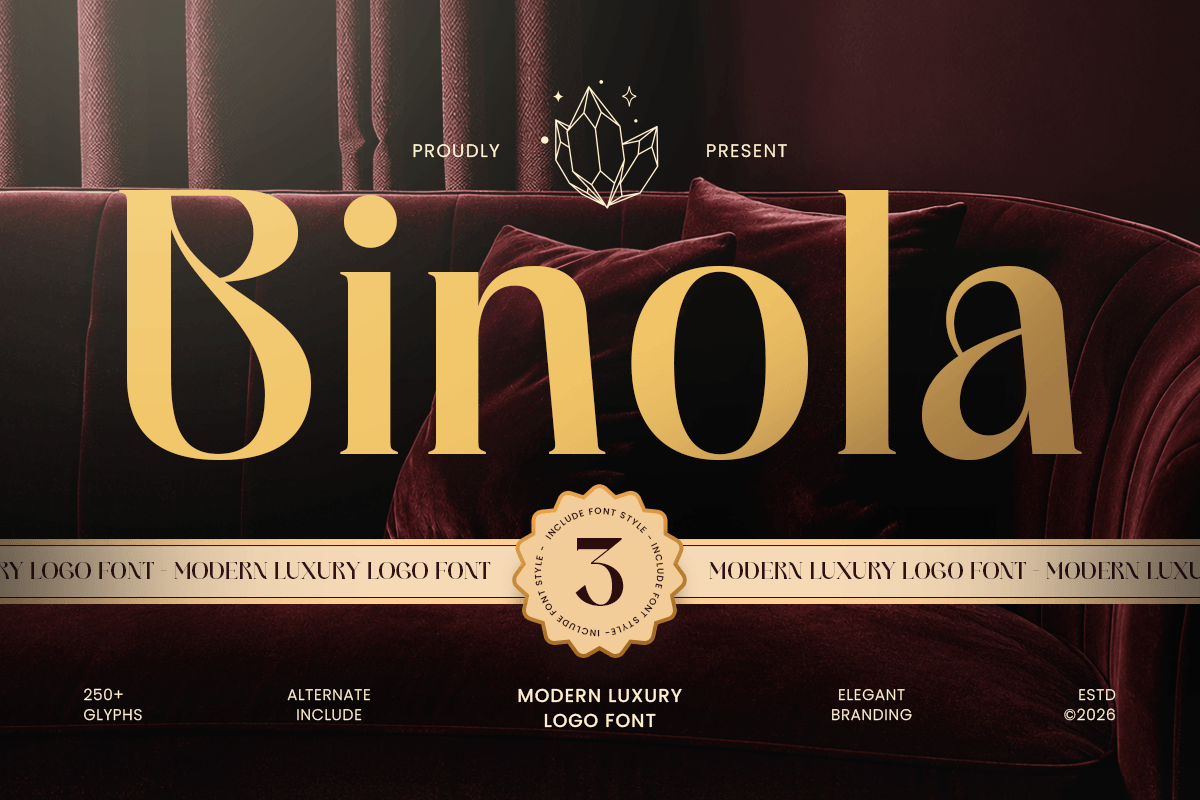
Binola
-Modern Luxury Logo Serif Font
Binola - Modern Luxury Logo Serif Font
Binola is a modern luxury logo serif font designed to bring elegance, refinement, and premium character to your creative projects. With graceful serif details, balanced contrast, and stylish proportions, this typeface is perfect for luxury branding, elegant logos, fashion editorials, premium packaging, and sophisticated visual identities.
Inspired by modern luxury aesthetics and timeless editorial typography, Binola blends clean structure with a soft, exclusive personality. Its polished letterforms help every composition feel elegant, memorable, and visually refined, ideal for beauty brands, fashion labels, wedding stationery, boutique packaging, and high-end lifestyle products.
Whether used as a logo mark, magazine title, invitation headline, or packaging centerpiece, Binola delivers a premium typographic presence that works beautifully across both print and digital media.
Binola – Modern Luxury Logo Serif Font Features
• Modern luxury serif design with elegant logo appeal
• Prepared with 3 style: regular, italic and serif style
• Perfect for branding, logos, editorials, invitations, and premium packaging
• Stylish letterforms with graceful contrast and refined proportions
• Ideal for fashion, beauty, wedding, lifestyle, and boutique industries
• OpenType features for enhanced typographic styling
Create refined elegance with Binola – the perfect modern luxury serif font for premium branding, logo design, packaging, and editorial layouts. ✨